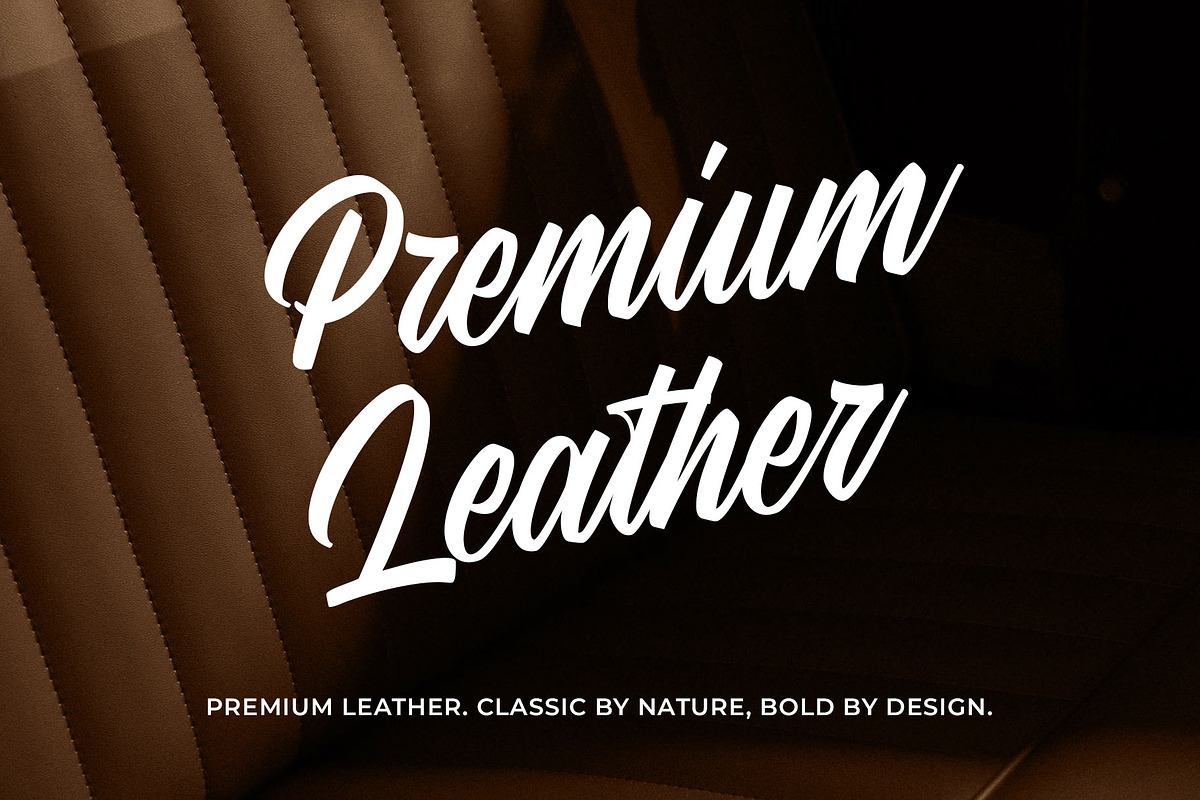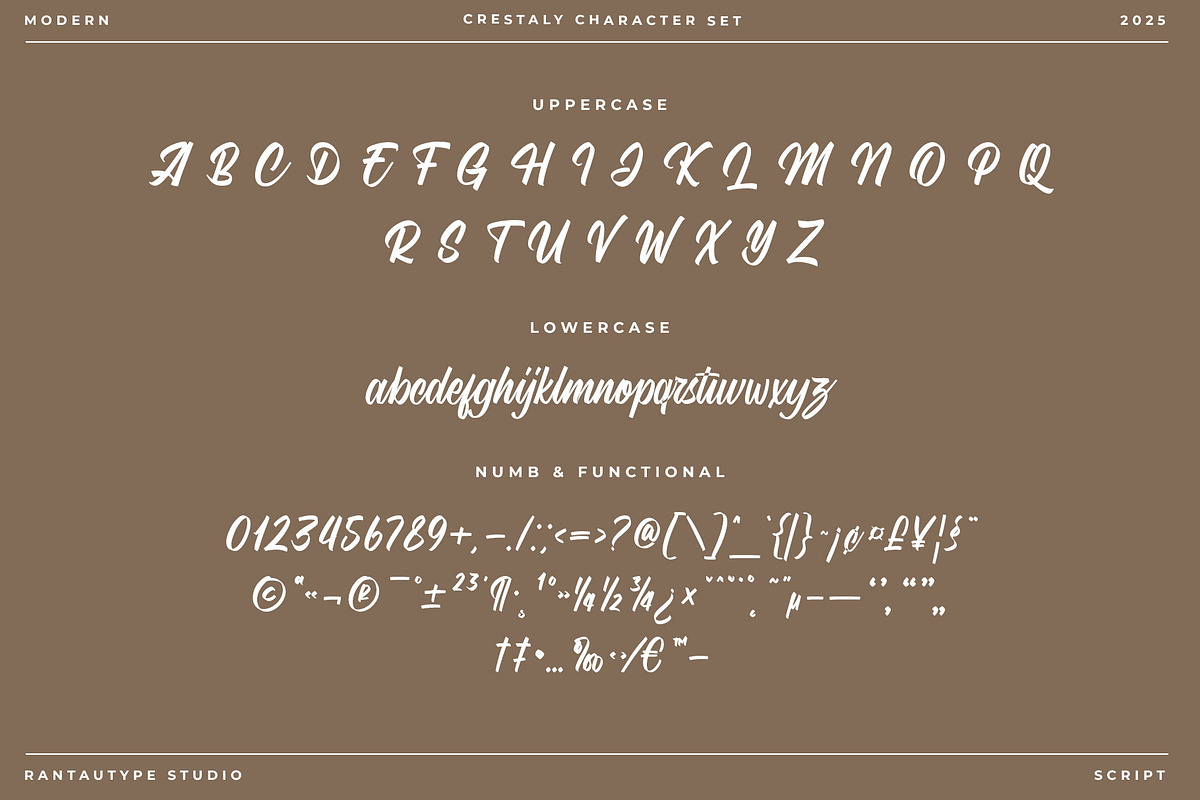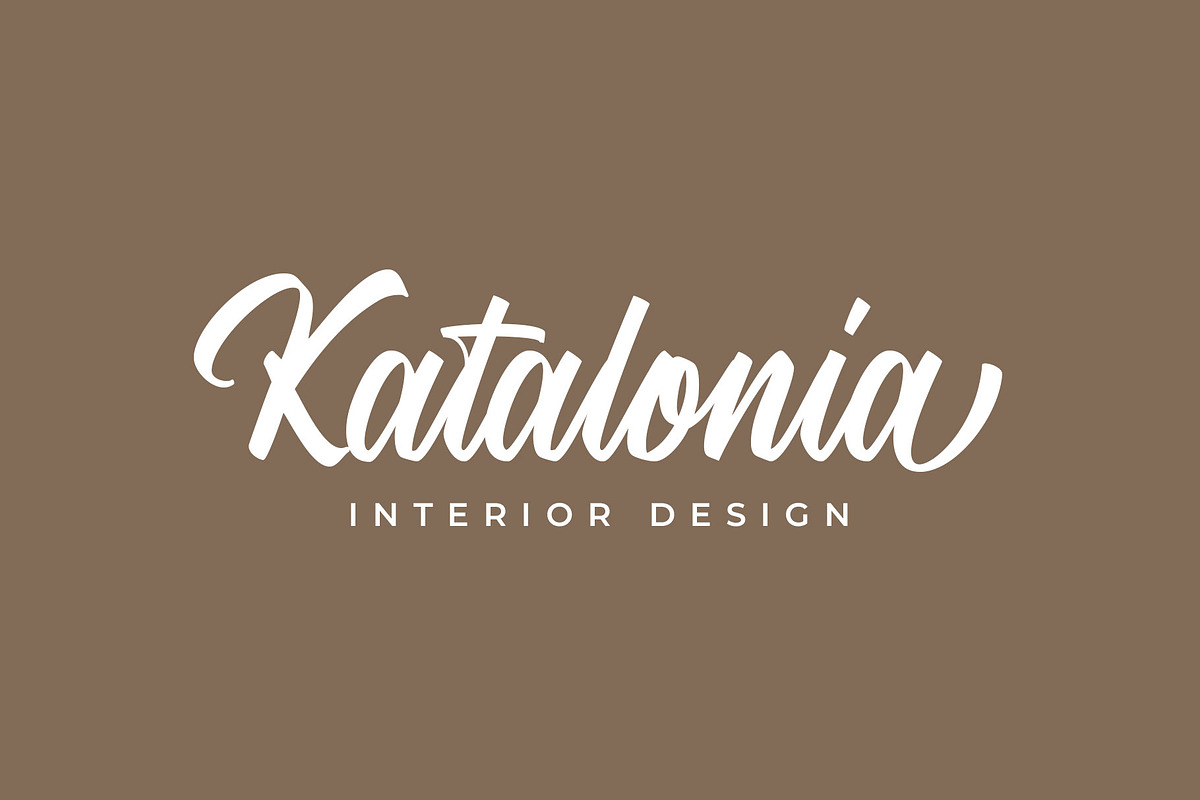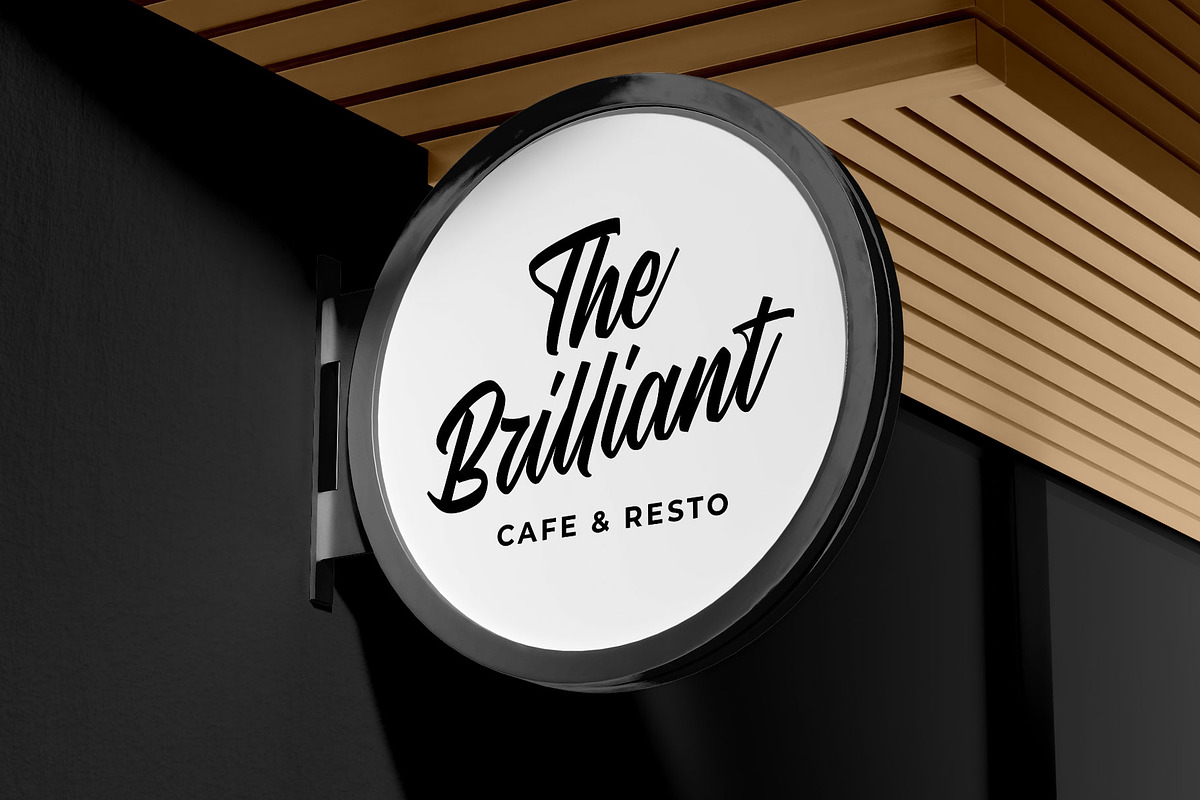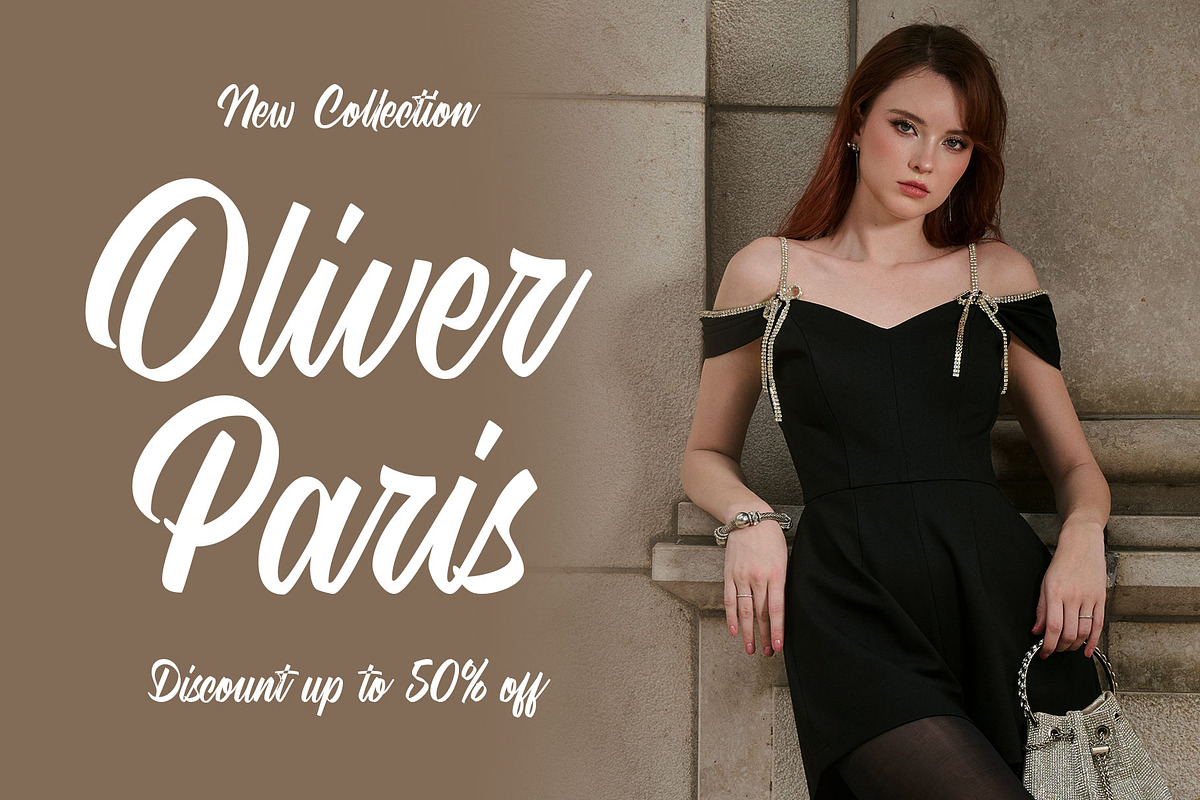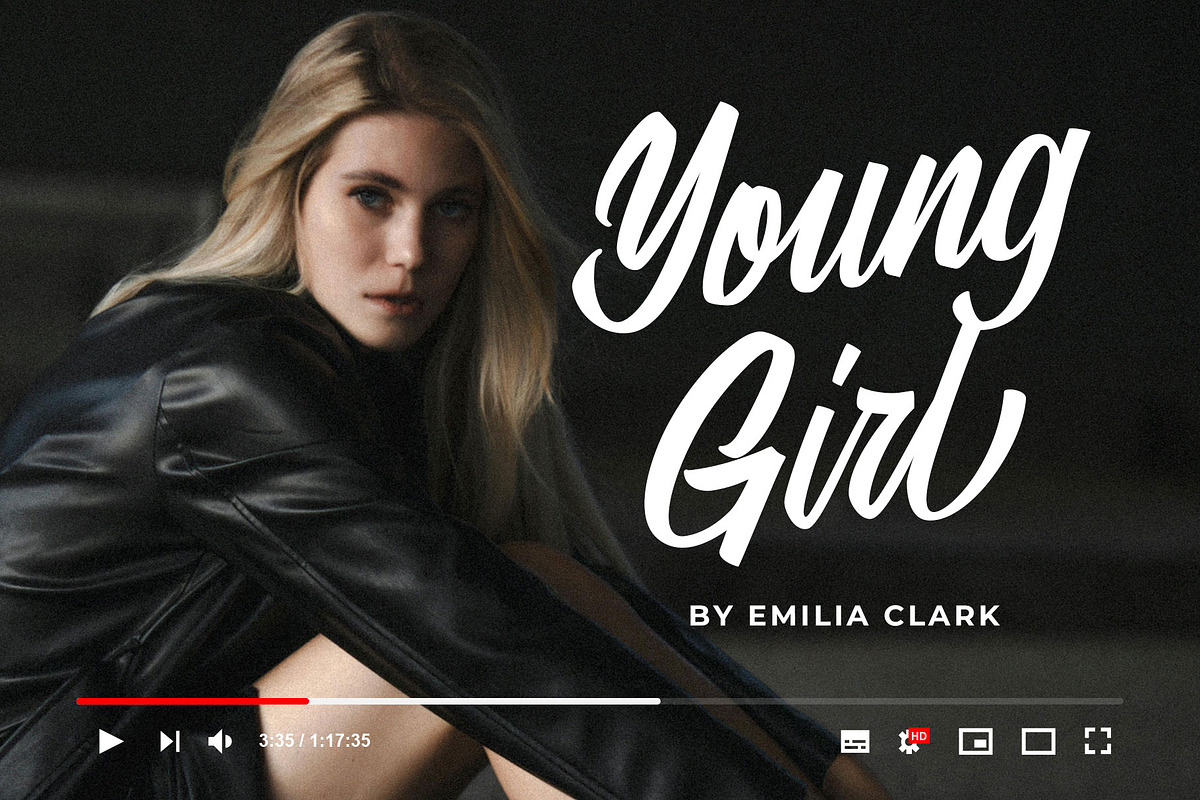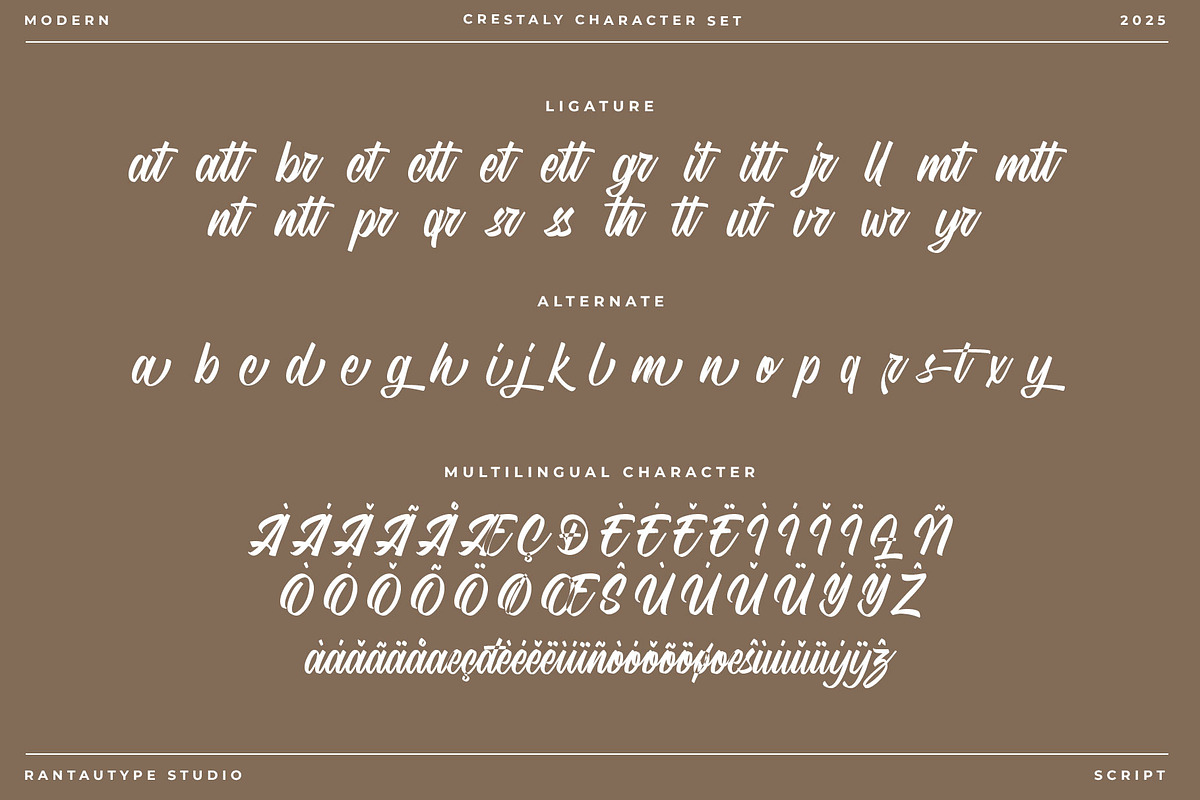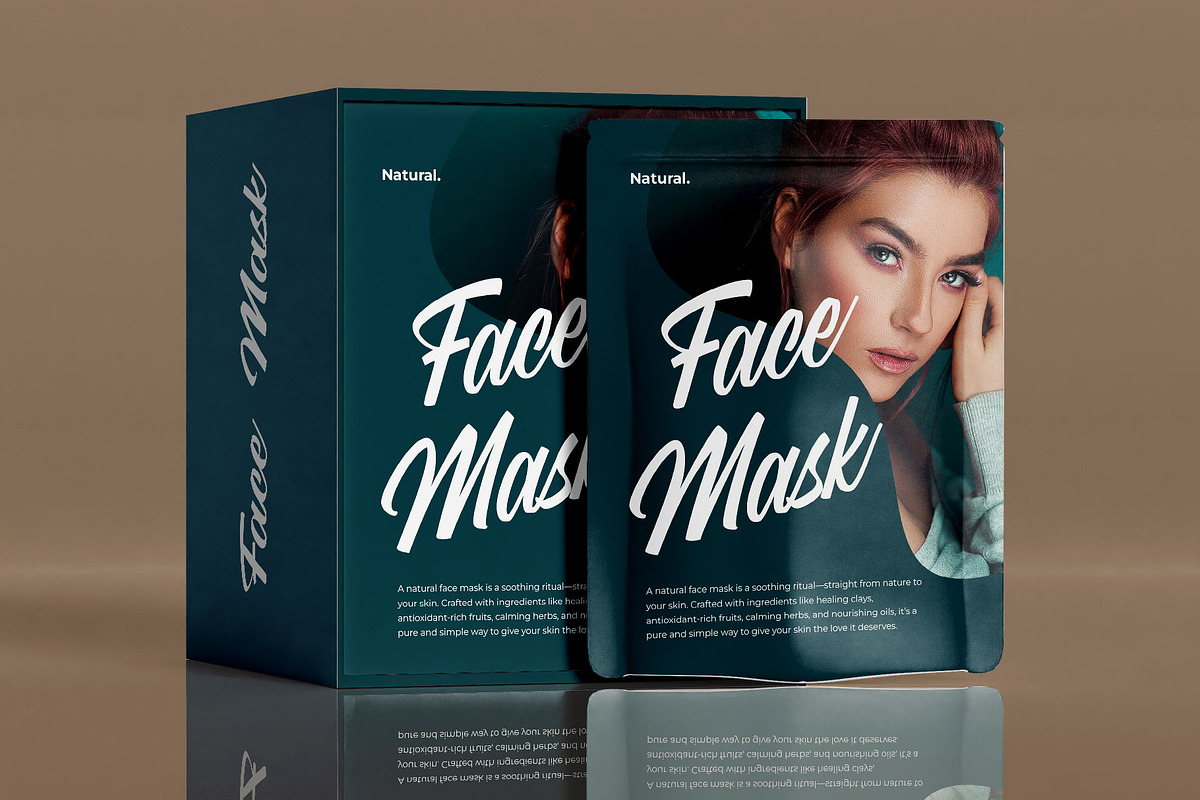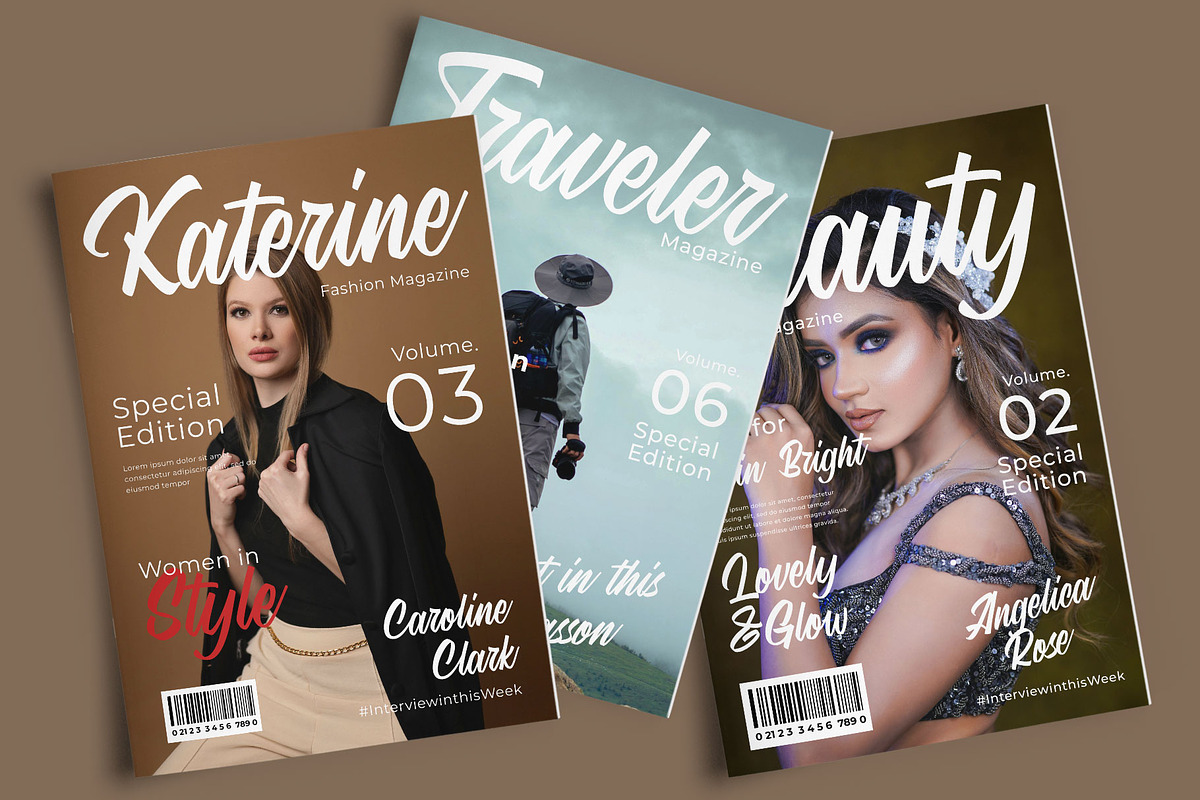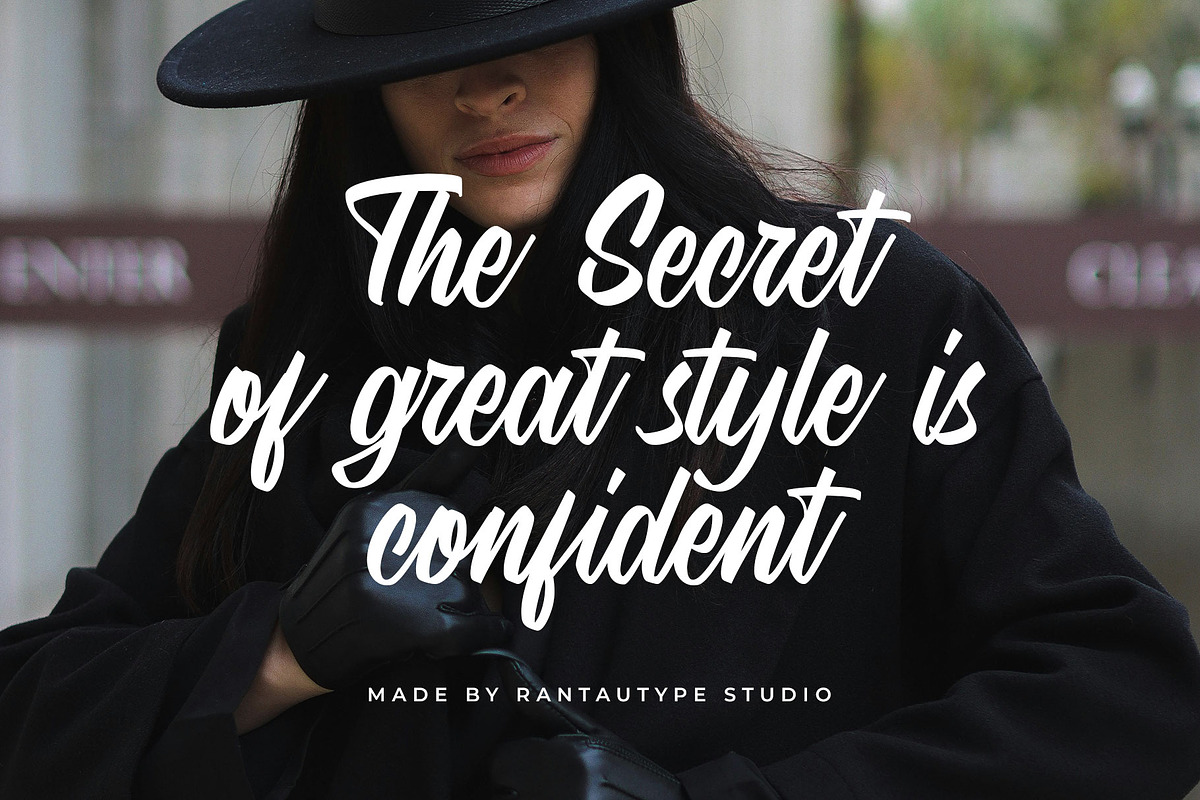
Crestaly Modern Script Font
Crestaly is modern handwritten font made by rantautype studio. Crestaly come with stylish shape to create professional brand. Crestaly is a perfectly choice for any creative endeavor, creating, modern, chic, lifestyle design such as logotype, title, cover, branding, invitations, wedding designs, display and magazine, social media posts, advertisements, printed quotes, product packaging, corporate brand, product designs, labels, photography, watermarks, special events and any other project with modern touch.
- Alternate and ligature
Fonts include Multilingual Character for: Afrikaans, Albanian, Asu, Basque, Bemba, Bena, Breton, Chiga, Cornish, Dutch, English, Estonian, Filipino, Finnish, Friulian, Galician, Gusii, Indonesian, Irish, Italian, Kabuverdianu, Kalenjin, Kinyarwanda, Luo, Luxembourgish, Luyia, Machame, North, Oromo, Portuguese, Quechua, Romansh, Rombo, Rundi, Rwa, Samburu, Sango, Sangu, Scottish, Gaelic, Sena, Shambala, Shona, Soga, Somali, Spanish, Swahili, Swedish, Swiss, German.